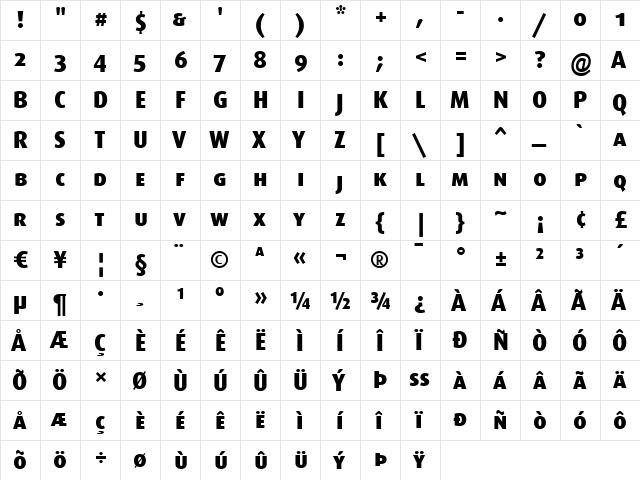
Dax-ExtraBoldCaps Regular
| Foundry | Hans Reichel, published by Fontshop International for the FontFont library |
Design Context for Dax-ExtraBoldCaps Typeface
Dax-ExtraBoldCaps takes a measured approach to typography — its balanced proportions and neutral character make it a reliable workhorse for both digital and print work. The heavy weight commands attention and anchors typographic hierarchies.